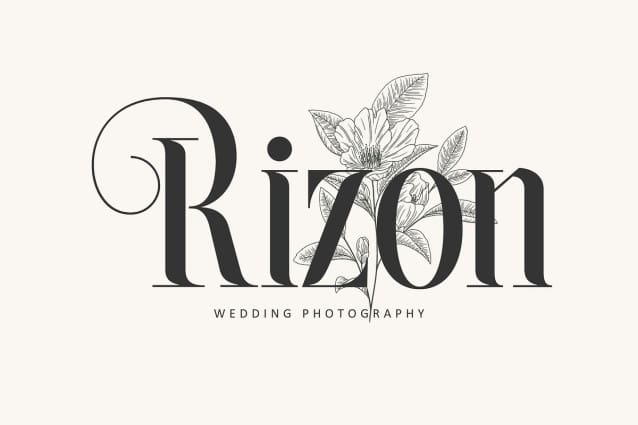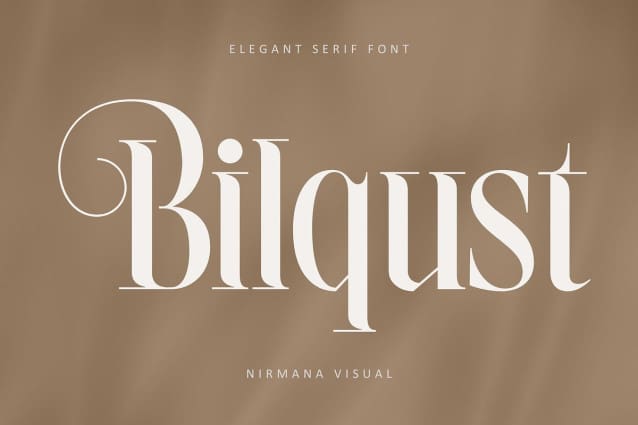
Bilqust Font
Bilqust Font offers beautiful typographic harmony for a diversity of design projects, including logos & branding, social media posts, advertisements & product designs.